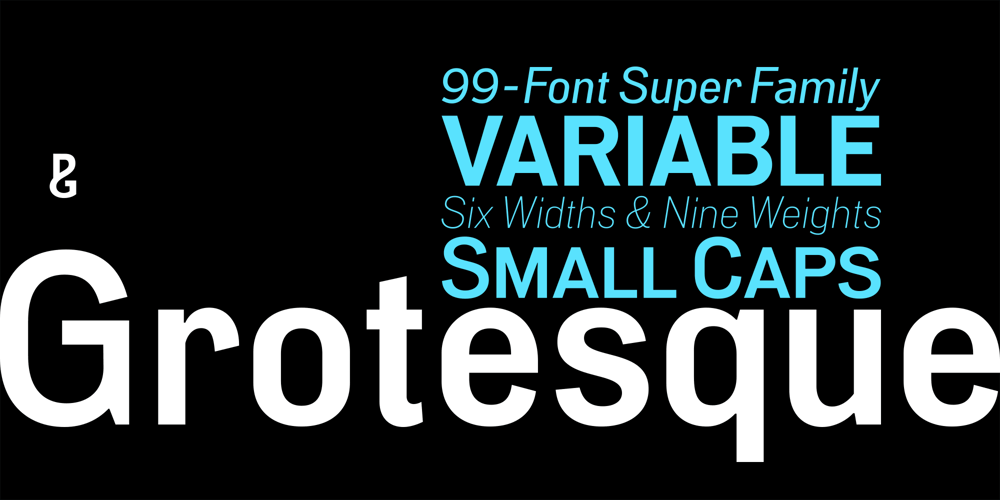
PG Grotesque Font Family was designed by Paulo Goode and published by Paulo Goode. PG Grotesque contains 99 styles and family package options. This is my interpretation of Edel Grotesk – a “lost typeface” from circa 1914 produced by Johannes Wagner GmbH of Ingolstadt, Germany. PG Grotesque is definitely not a revival, or even a faithful reproduction of that typeface as I was unable to source enough accurate references. What I have done is take the essence and unique characteristics of that typeface and brought this forgotten gem right into the 21st century. The full family features 99 fonts spread across 9 weights and 6 widths. PG Grotesque is also available as a single variable font so that you can fine tune the width, weight, and italic angle to your exact preference.Distinctive features include high-waisted capitals, a straight-legged capital ‘R’, and flattened arches in the ‘a’ and ‘g’ glyphs. Using PG Grotesque will give your typography a distinctly retro feel with its vintage heritage inherent in every character.You will find this is an incredibly versatile typeface with added value from its extensive language coverage along with small caps availability at the click of a button. PG Grotesque will prove to be a valuable asset in your type arsenal.Test drive PG Grotesque today – both the Regular and Italic fonts are offered as a free download.See full details and hi-res images at https://paulogoode.com/pg-grotesqueKey features: 9 Weights 6 Widths 99 Fonts Small Caps Old Style Figures European Language Support (Latin) 550+ Glyphs per font